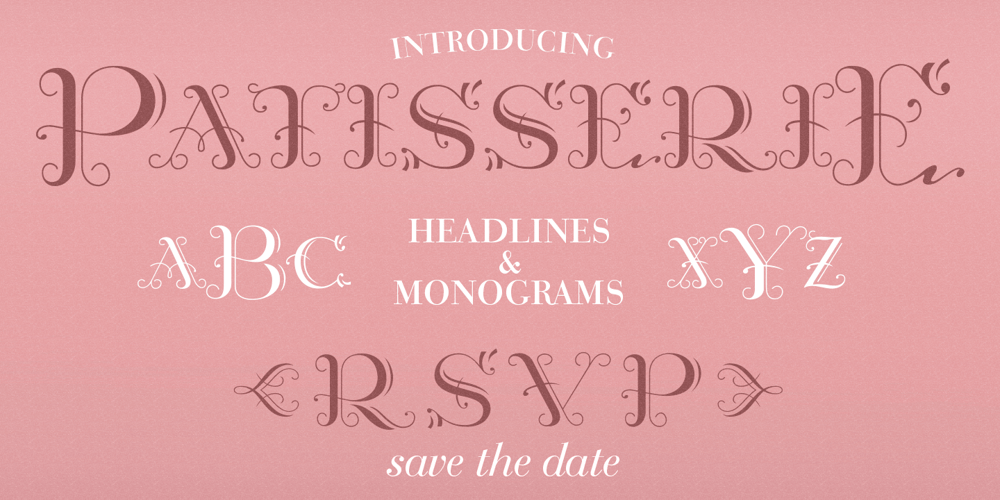
MFC Patisserie Monogram Font Family was designed by Jim Lyles, Brian J. Bonislawsky and published by Monogram Fonts Co.. MFC Patisserie Monogram contains 1 styles and family package options. The source of inspiration for MFC Patisserie Monogram is a letter set from the book, “Letters and Lettering” by Paul Carlyle & Guy Oring, published in 1938. This elegant decorative style was shown as Capitals & Numerals only, but we’ve expanded it out to include Capitals, Smallcaps, Numerals, an Ampersand, and ornamental parenthesis, brackets, and braces.MFC Patisserie Monogram can create one, two, or three letter monograms as well as basic headline and titling settings. It is a refined look that is as darling as it is delicate. The numeral set and bullet dividers allow for more detailed and personalized monograms. If you want an even more customized look, you can add any of a handful of brackets, braces, or parenthesis to surround your monograms in a complimenting style.